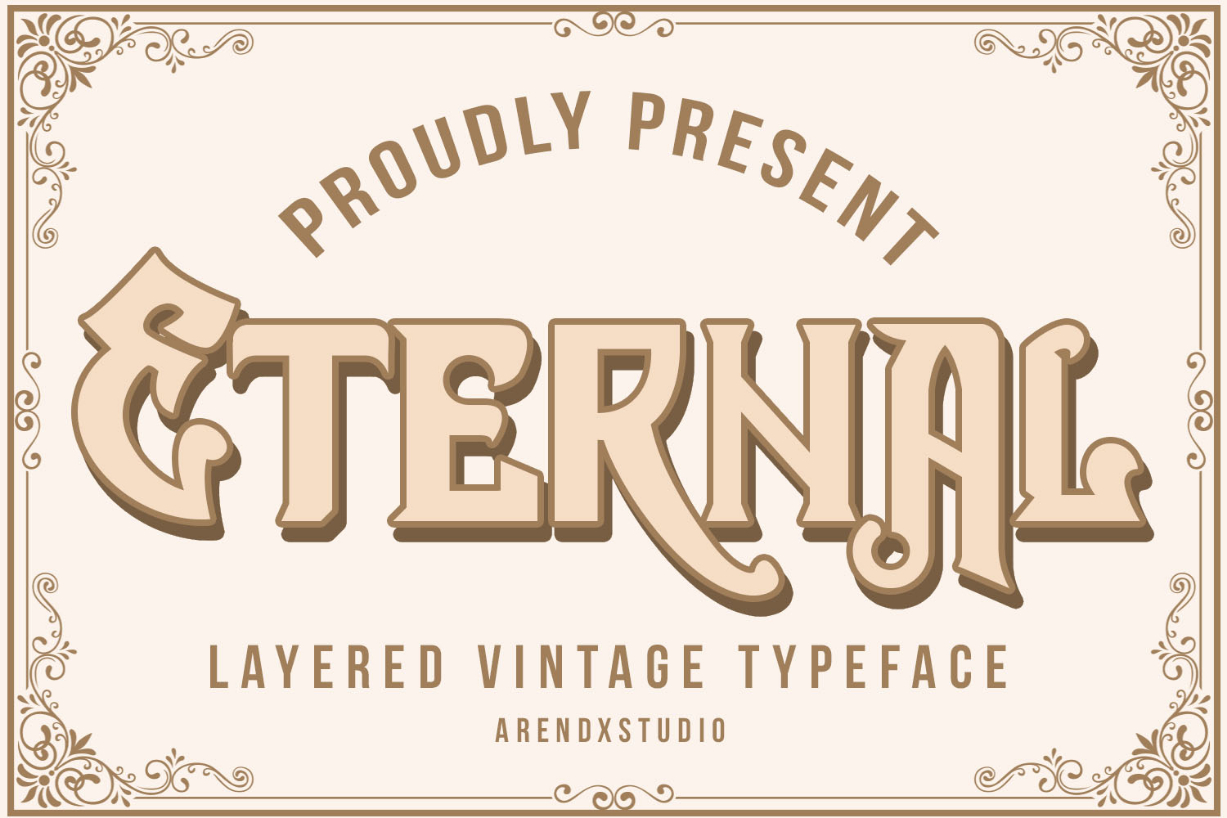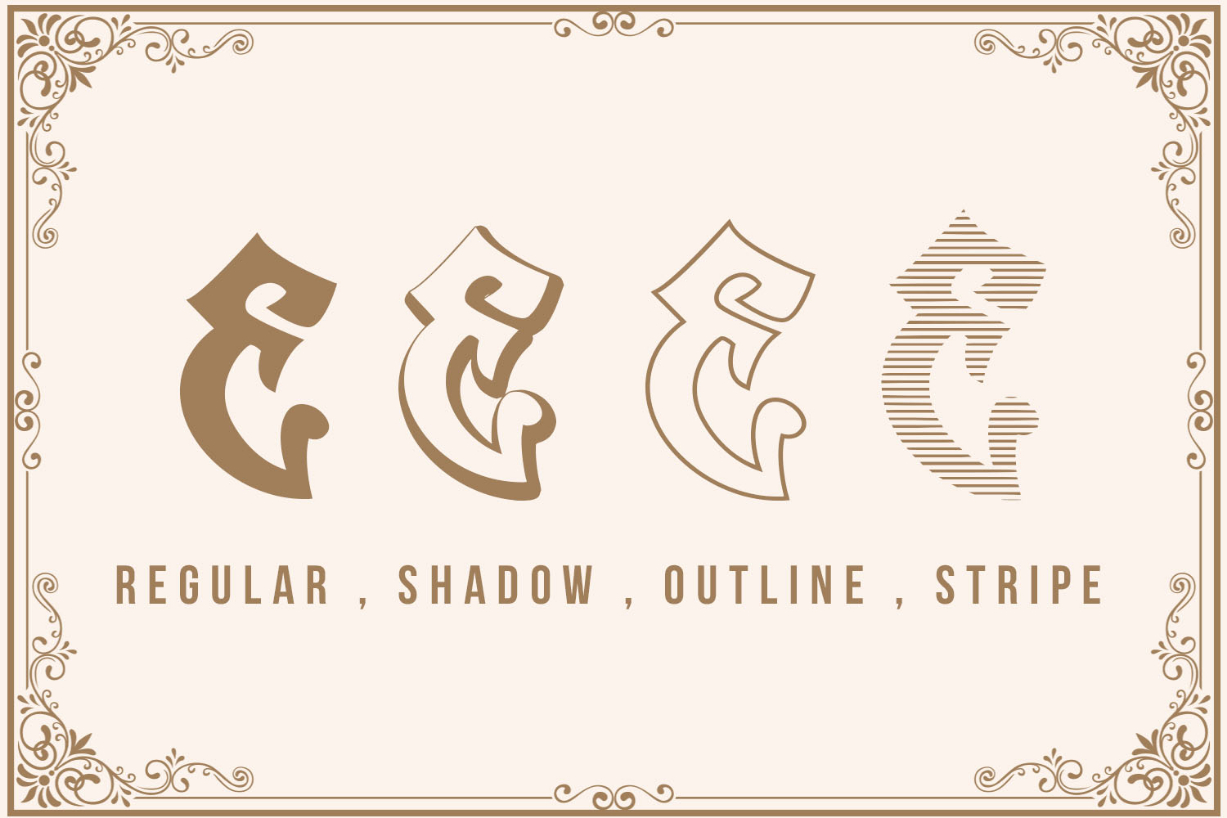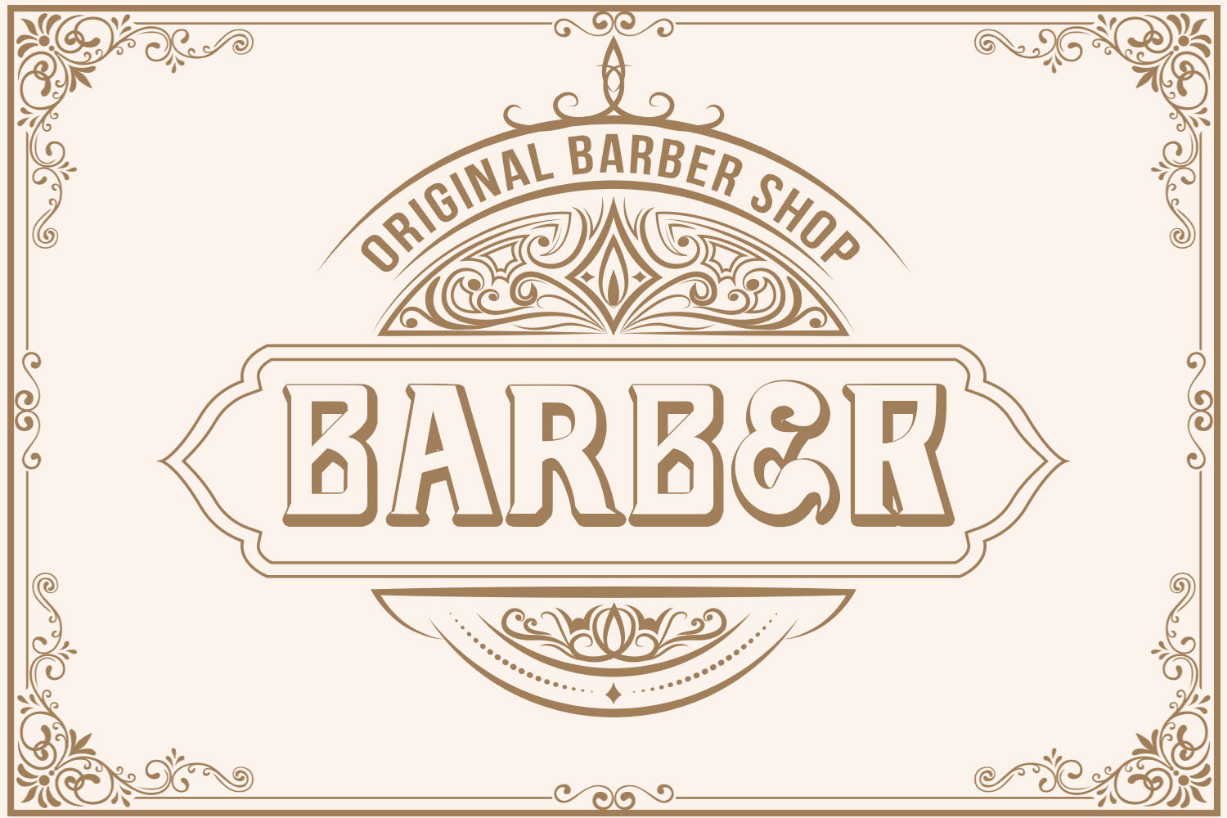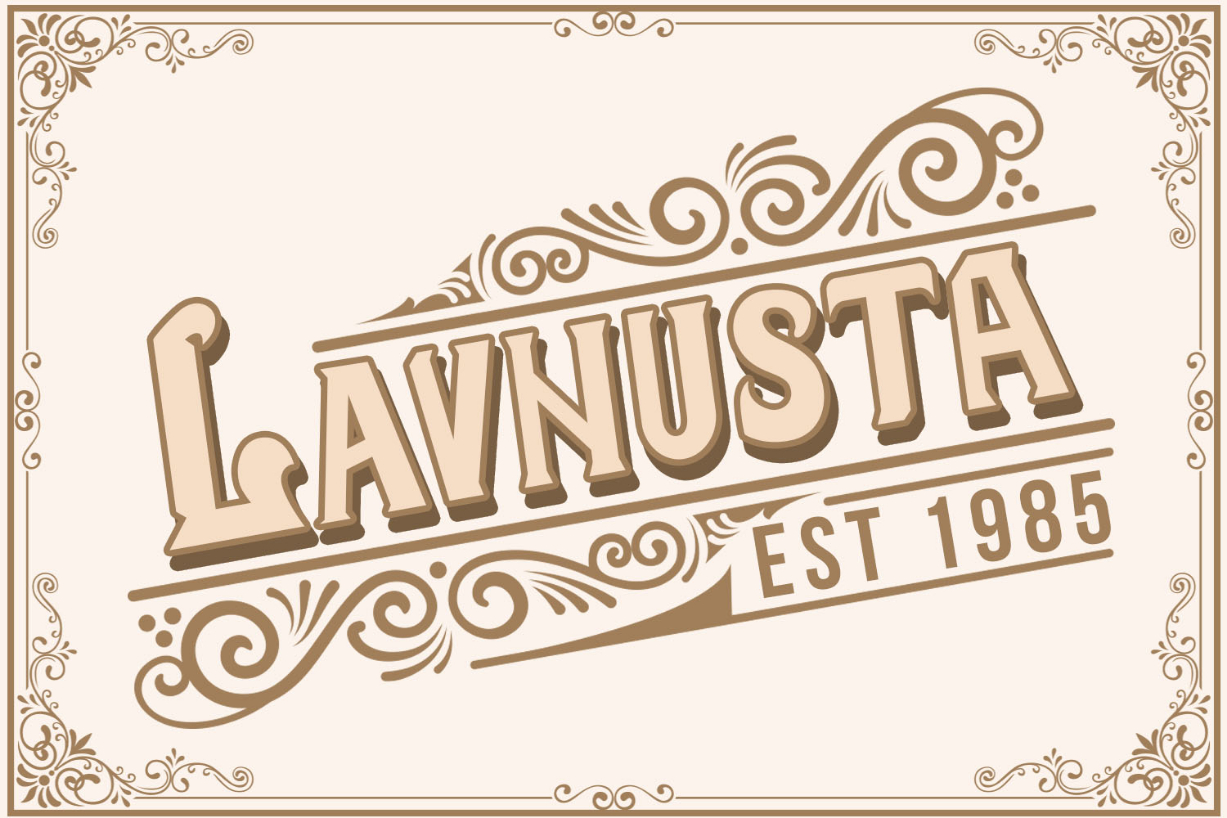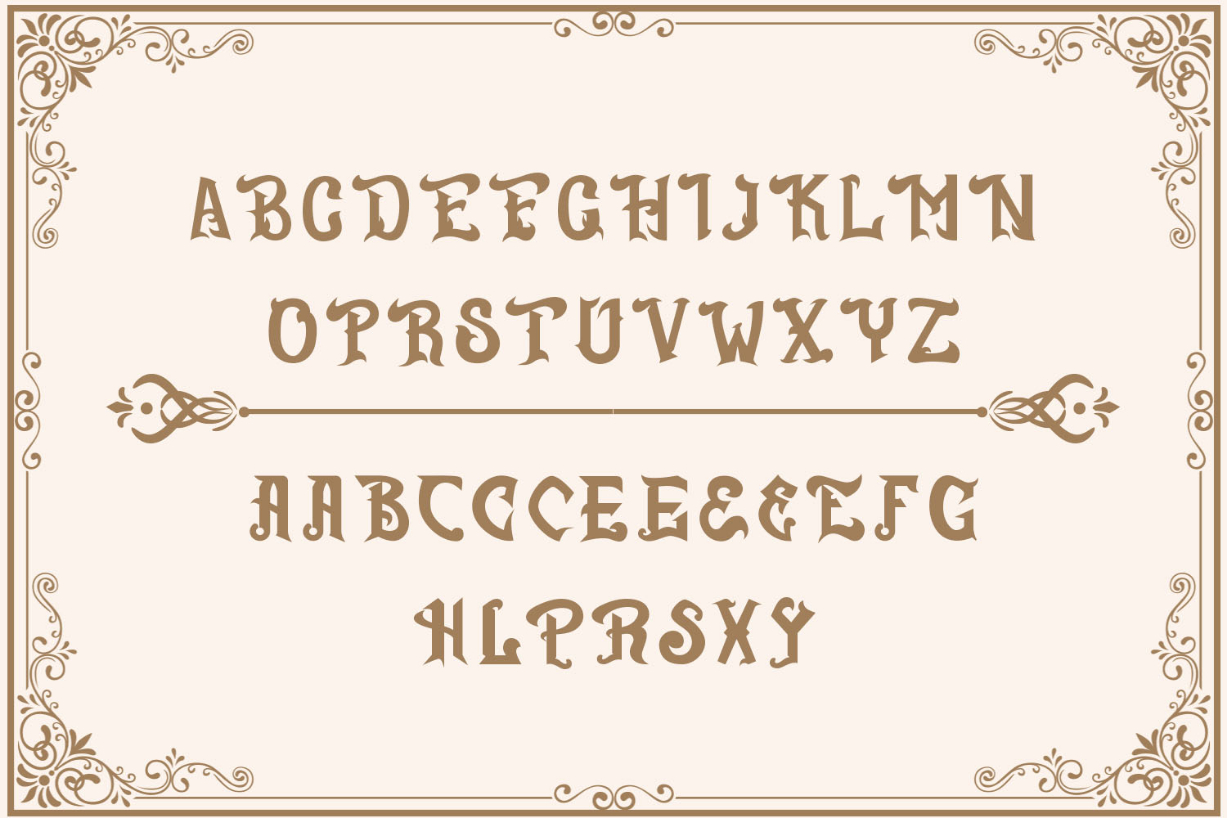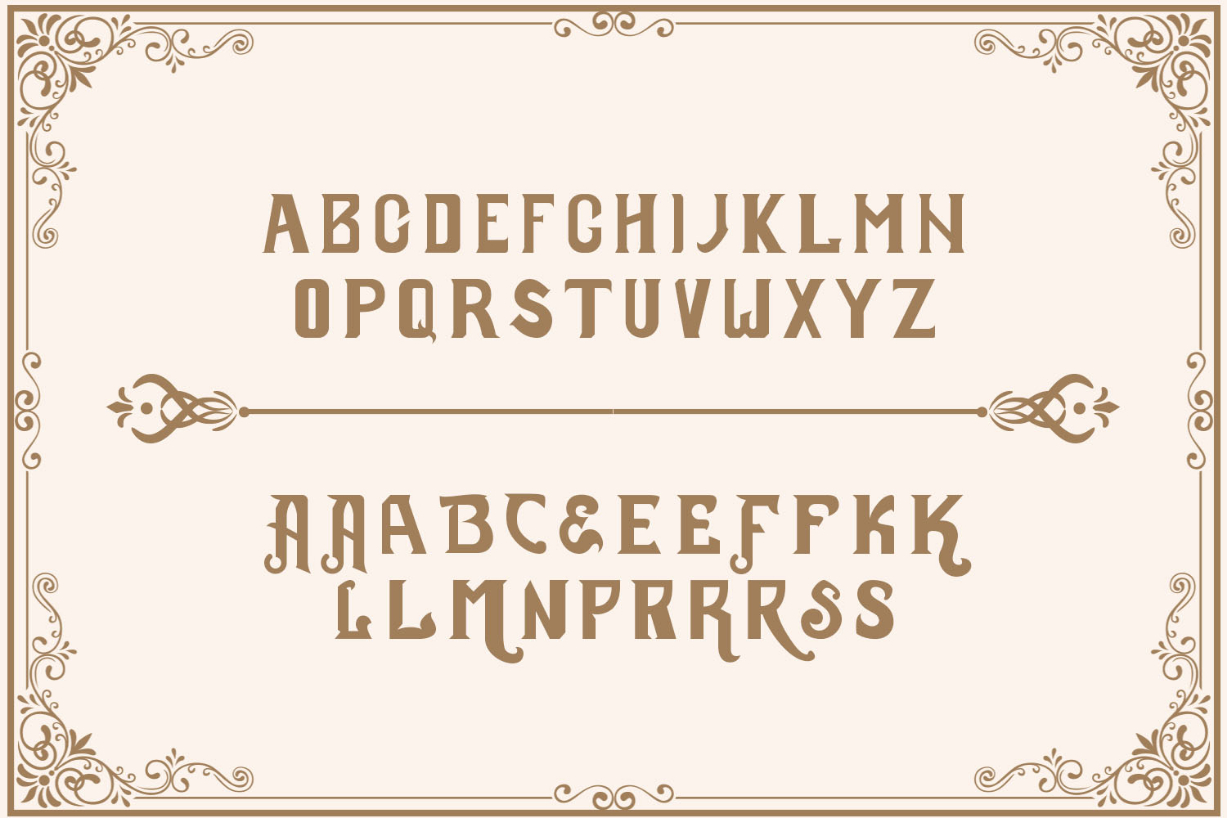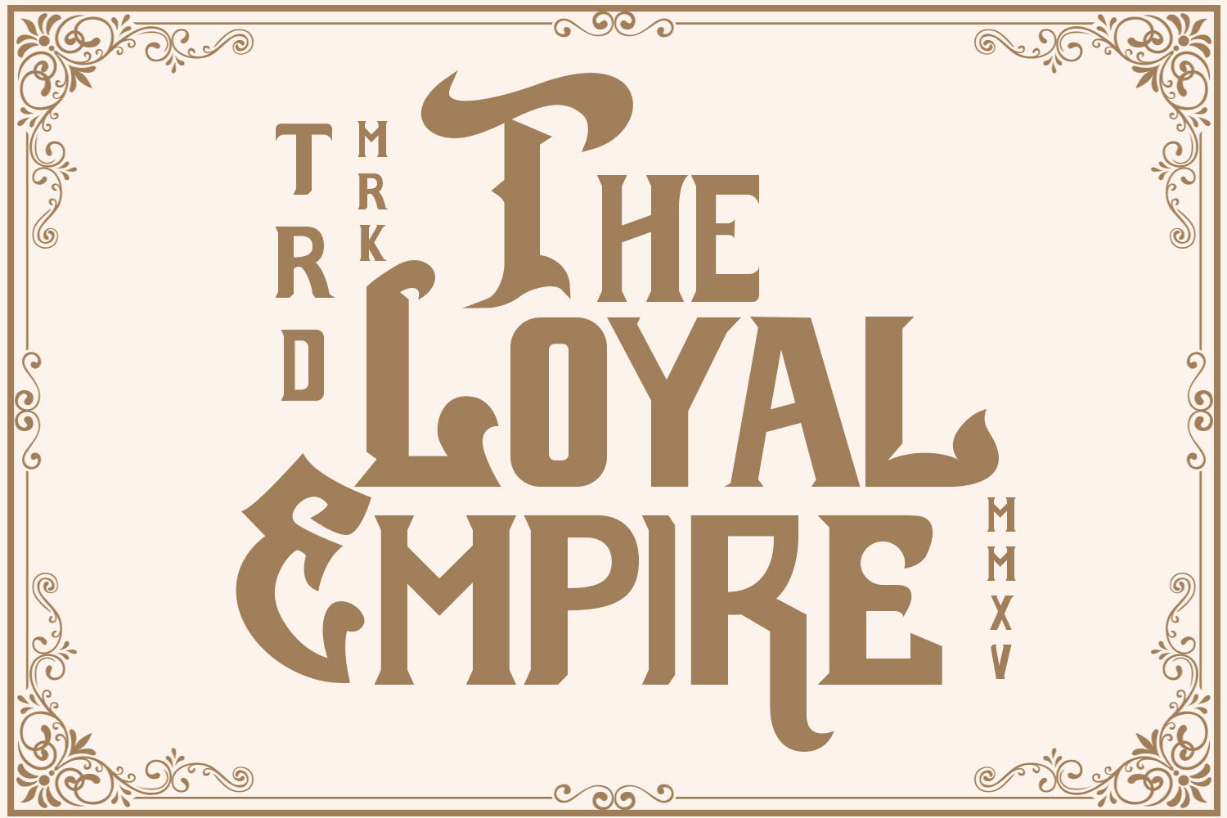
Eternal Font
About Eternal Font
Eternal is a blackletter font inspired by vintage signs and retro style labels. This makes it ideal and the perfect choice for creating unique designs like posters, logos, labels, packaging and much more!